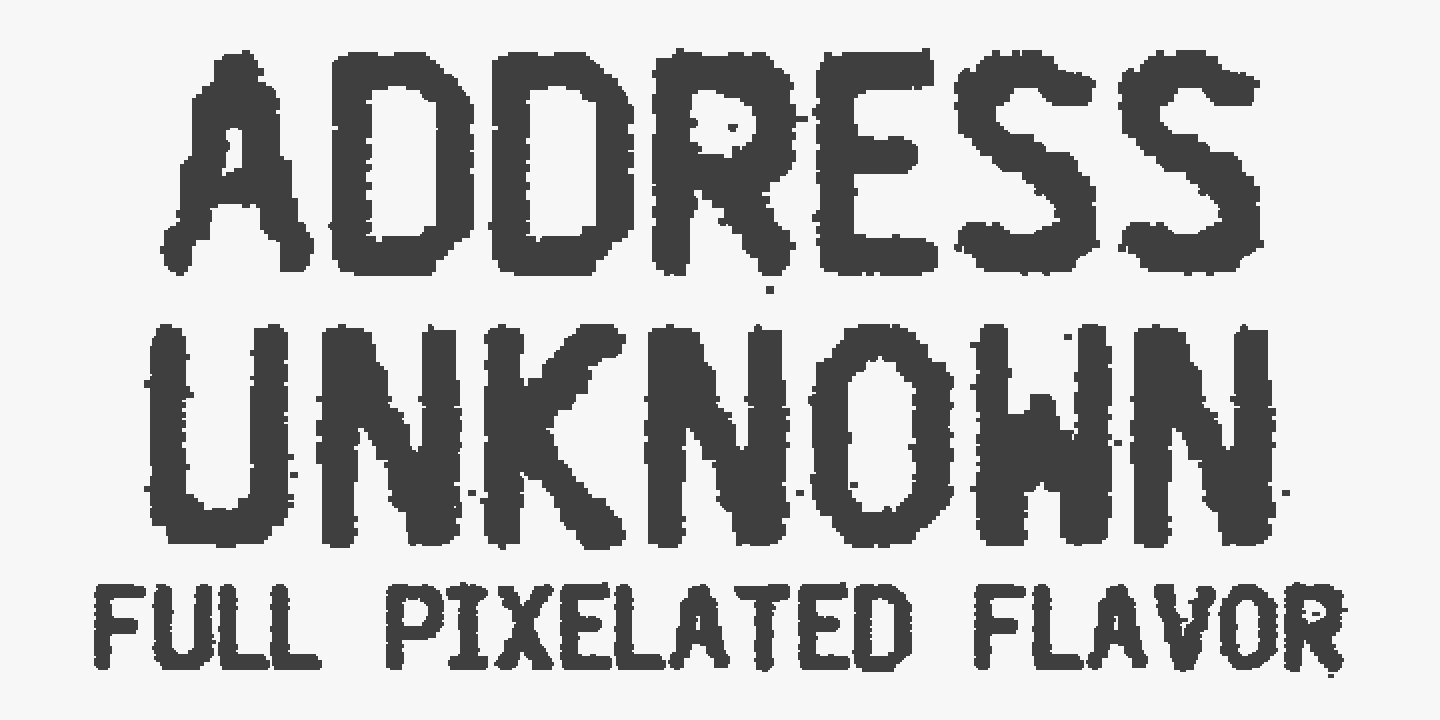
CA Address Unknown
This font has its roots in needle printers. Once they were the standard printing method, but still today most cashiers print this way. Raymond was so fascinated by this technique, that he made a font out of it. Thank you, man!
Raymond Brekelmans